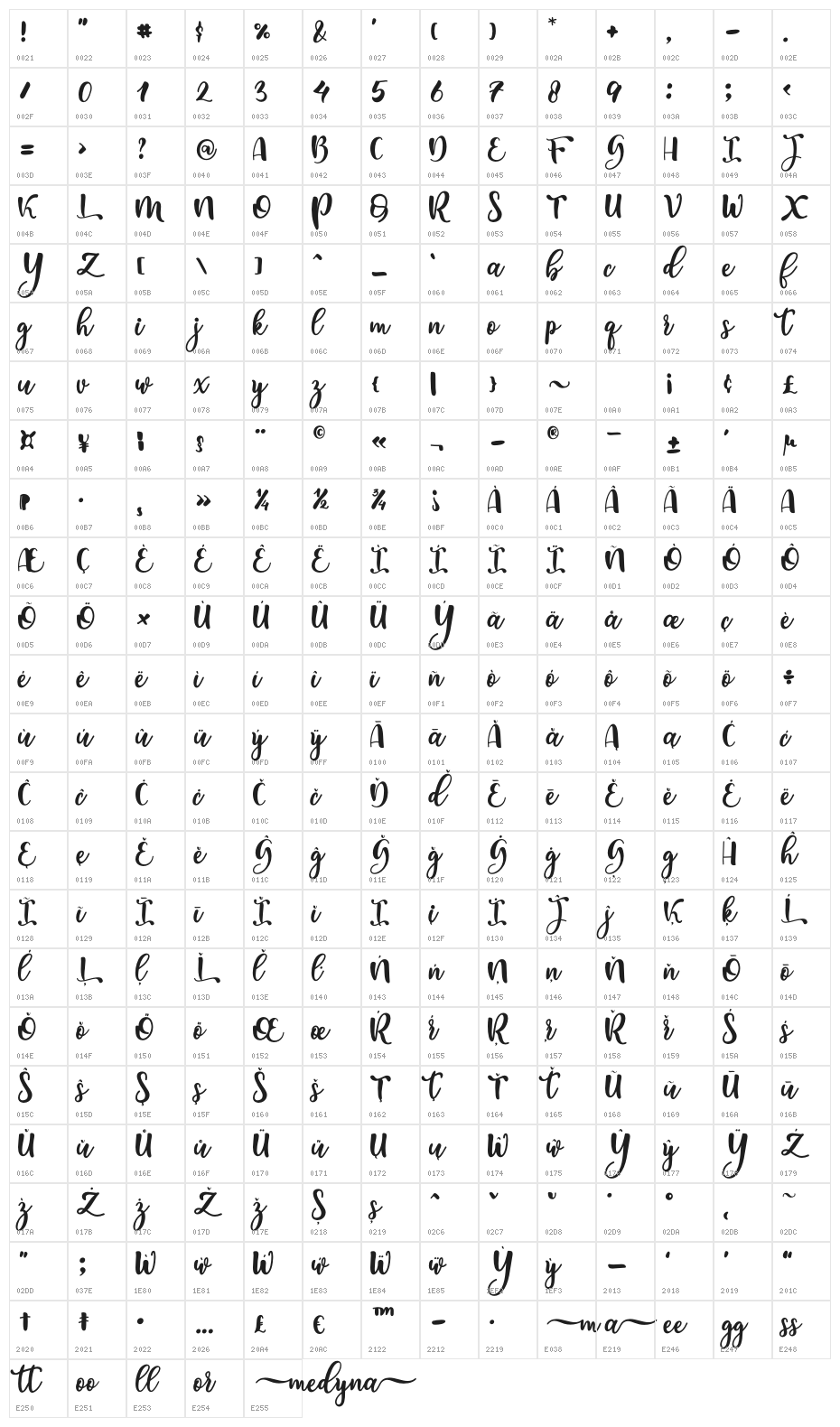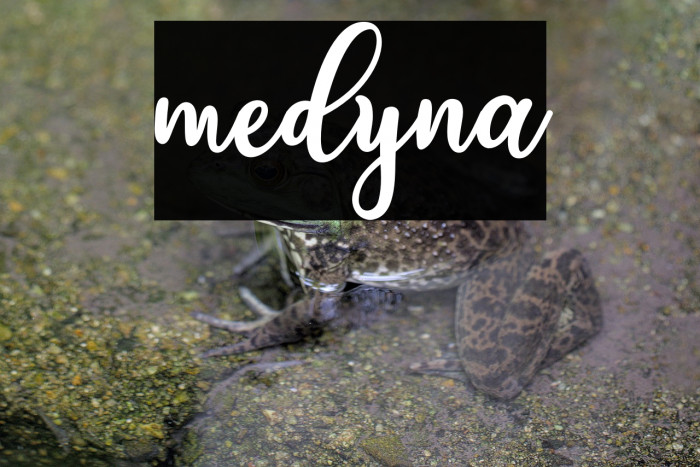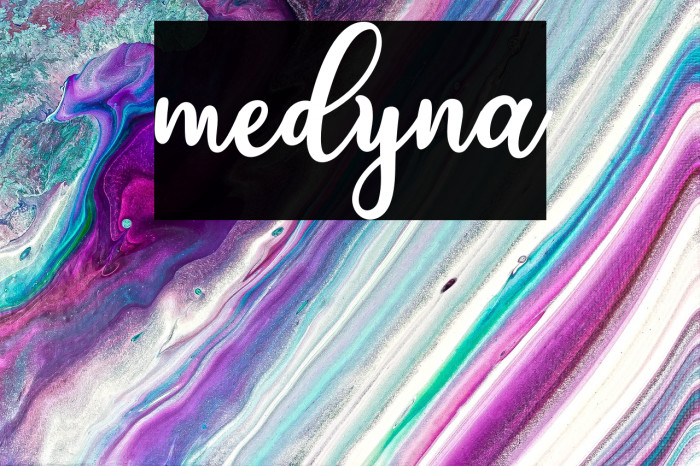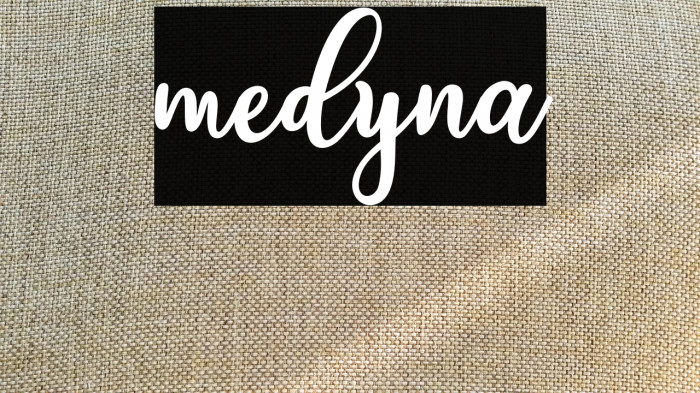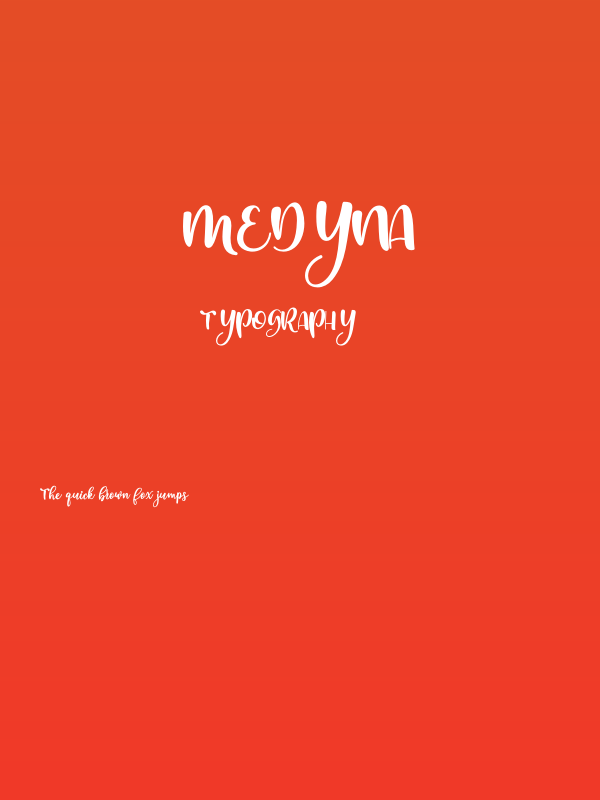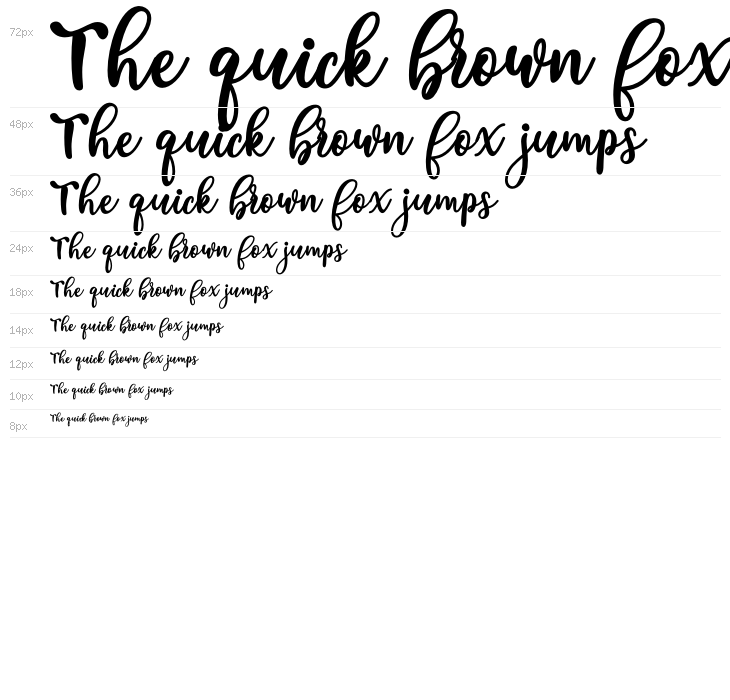
medyna Font
medyna Description
This font features a lively and expressive script style, characterized by its flowing, cursive letterforms. The uppercase letters exhibit a playful yet elegant flair, with varying stroke widths that add a dynamic quality. The lowercase letters maintain a consistent rhythm, enhancing readability while preserving the font's artistic nature. Numbers and special characters are crafted with the same attention to detail, ensuring a cohesive look across all elements. The overall design is both modern and whimsical, making it suitable for a variety of creative applications.
| Use Case | Logos, Headlines, Decorative text |
| Proposed Projects | Ideal for wedding invitations, greeting cards, branding, and social media graphics. |